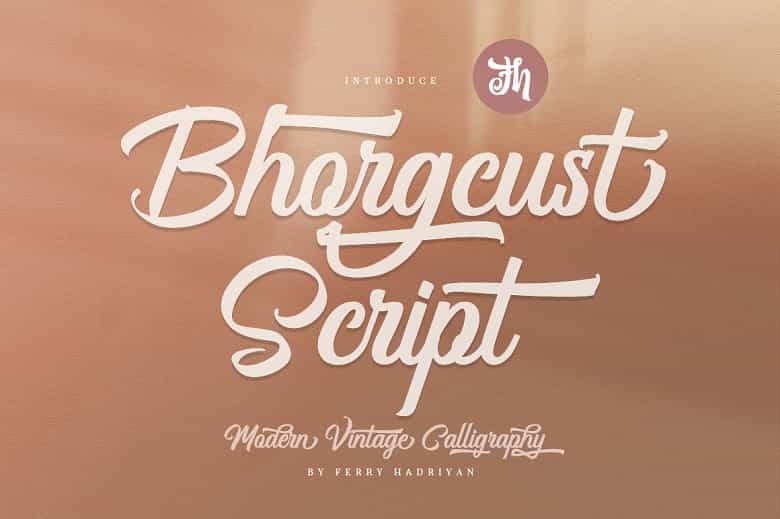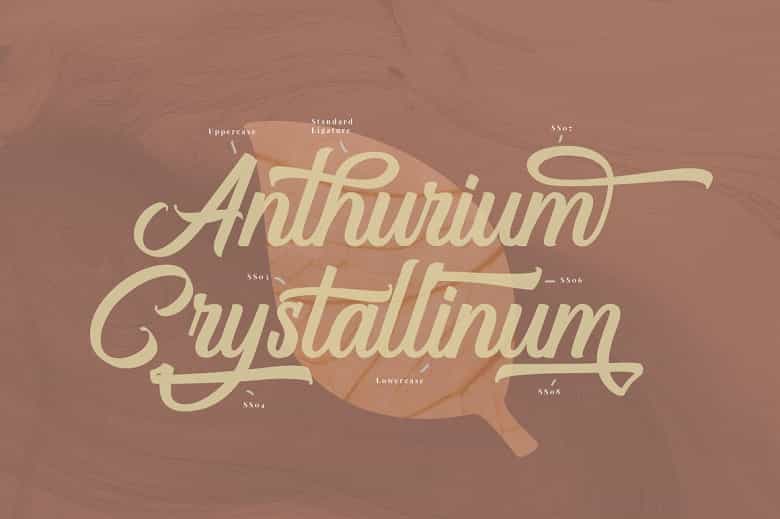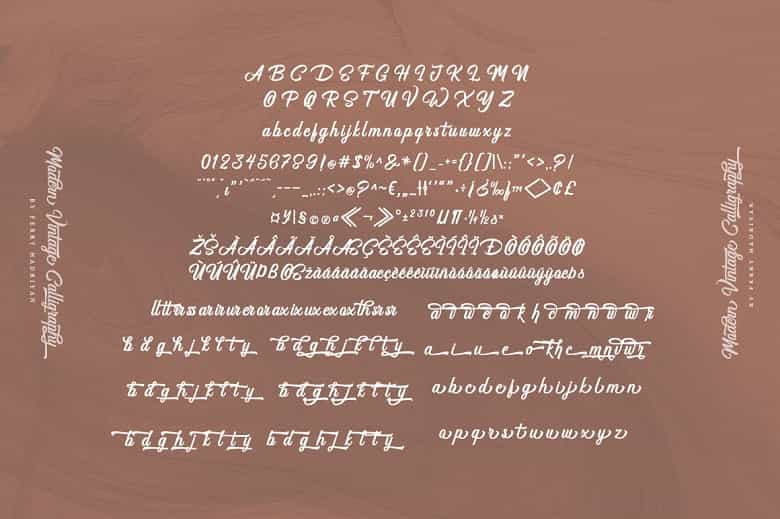
Bhorgcust is a modern vintage calligraphy script font that screams youth and channel the fun and lively spirit of the past. Taking a cue from the hand painted signs and advertisements of the mid- twentieth century, this font lends a classic and vintage aesthetic to today’s graphic designs.